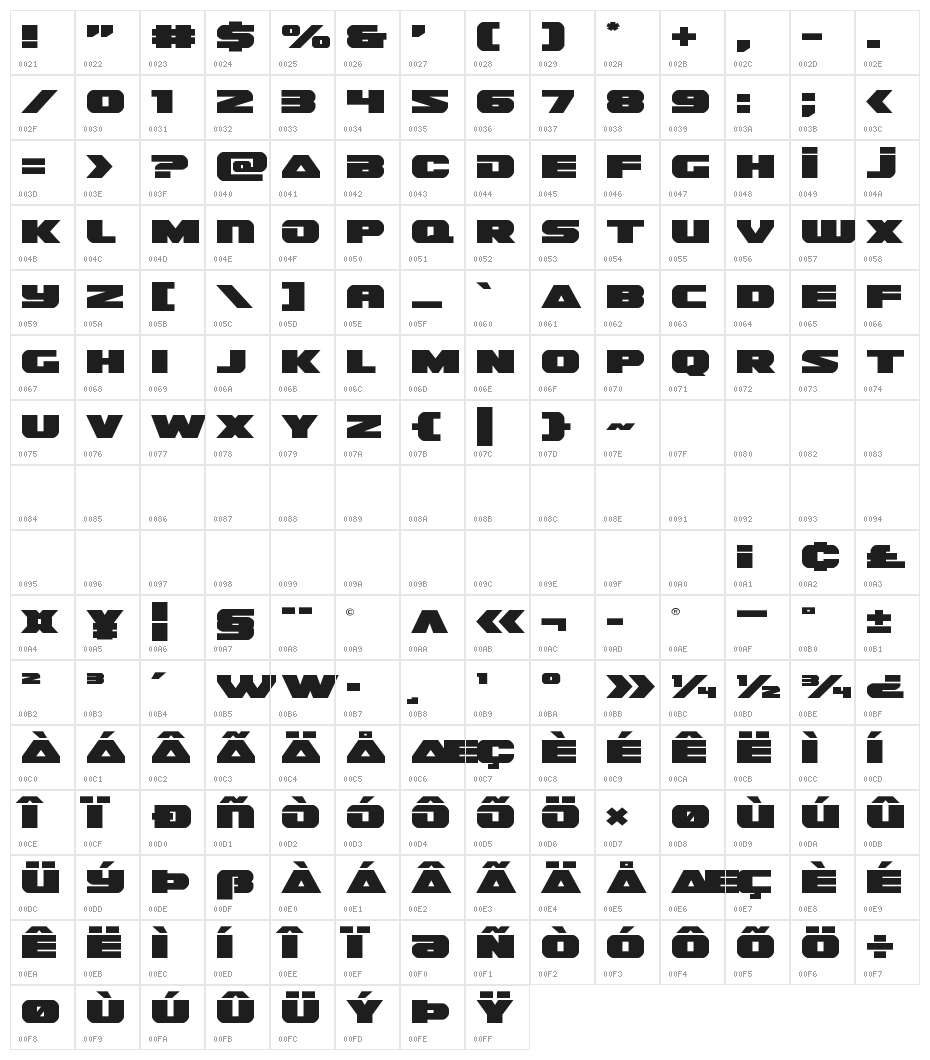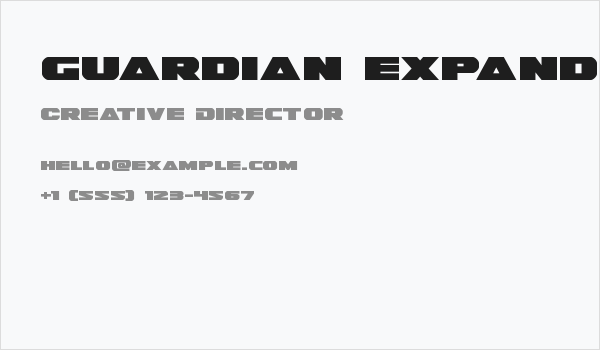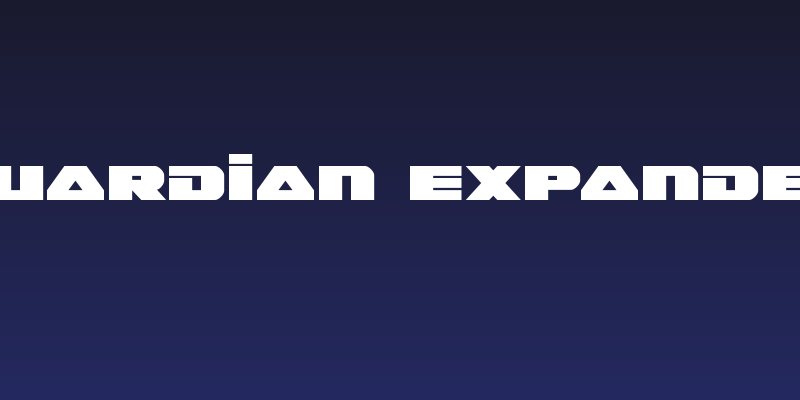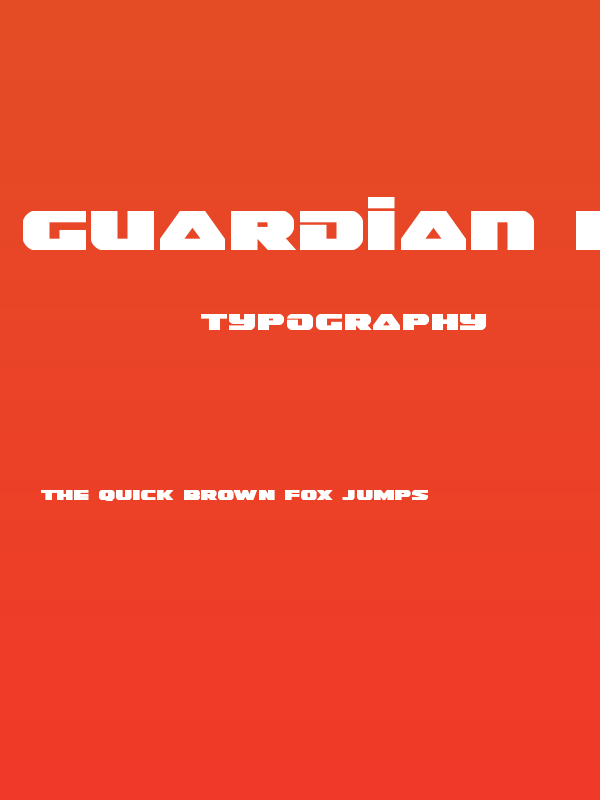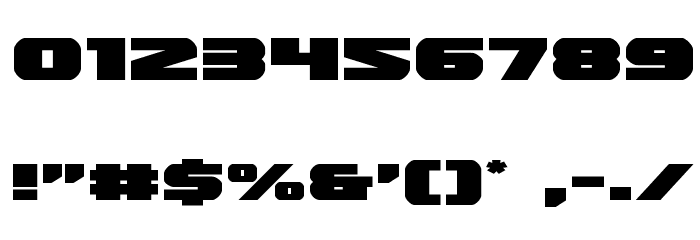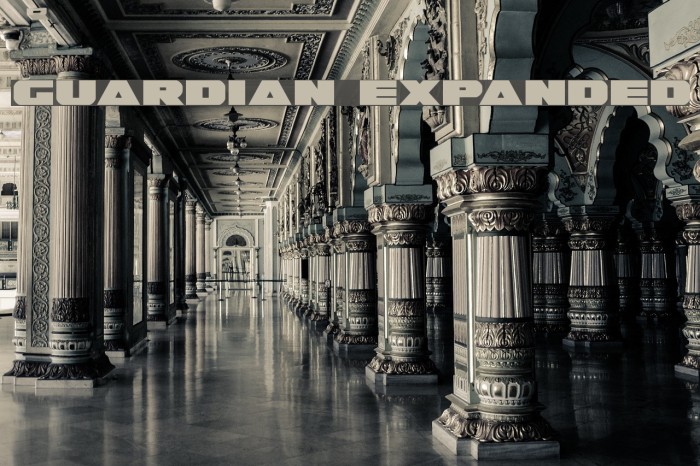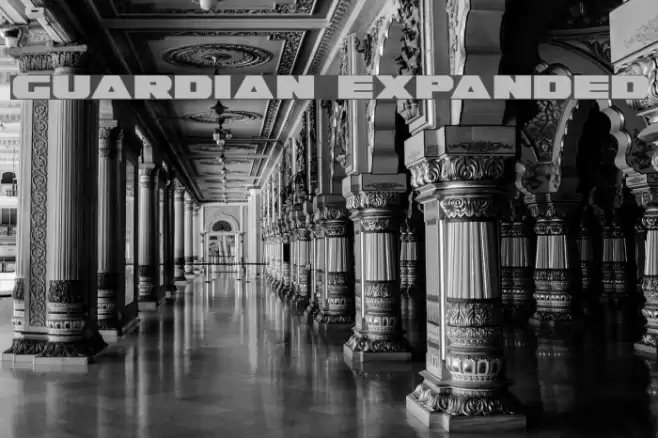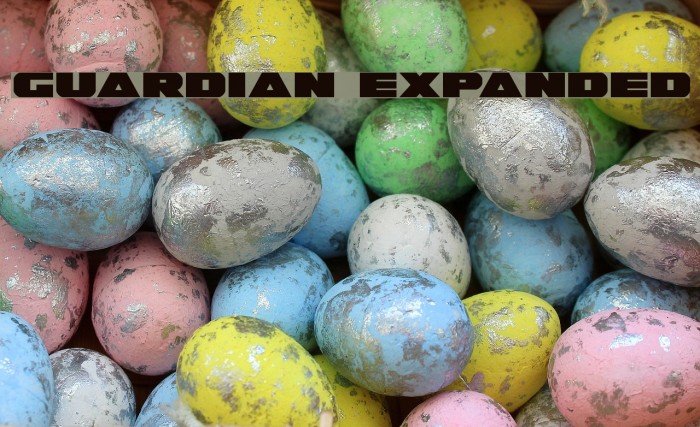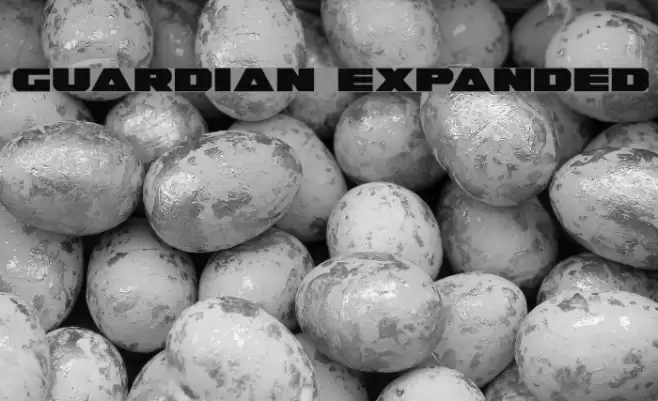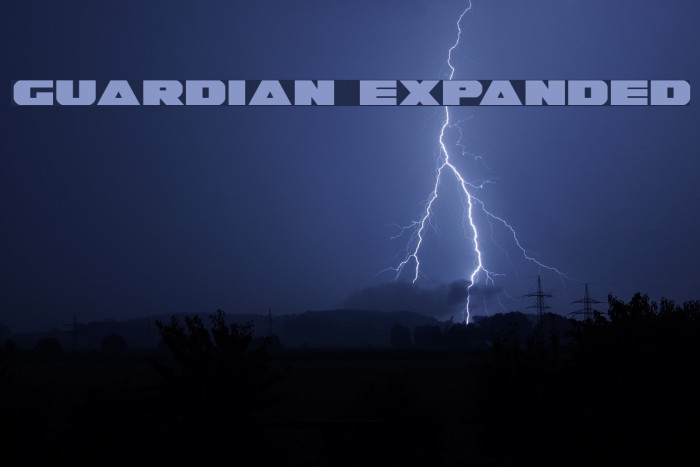
Guardian Expanded Font
Guardian Expanded Description
This font exhibits a bold and striking appearance with a distinctly modern and geometric style. The characters are wide and have a strong presence, making them ideal for impactful headlines or titles. The uppercase letters are particularly angular, with sharp edges and a uniform thickness that conveys strength and stability. The lowercase letters maintain the same boldness, ensuring consistency throughout the typeface. Numbers and special characters are designed to match the overall aesthetic, providing a cohesive look across all elements. The font's expanded width allows for a commanding visual impact, suitable for projects that require attention-grabbing text.
| Proposed Projects | Perfect for branding, posters, advertisements, and any design requiring a strong visual impact. |